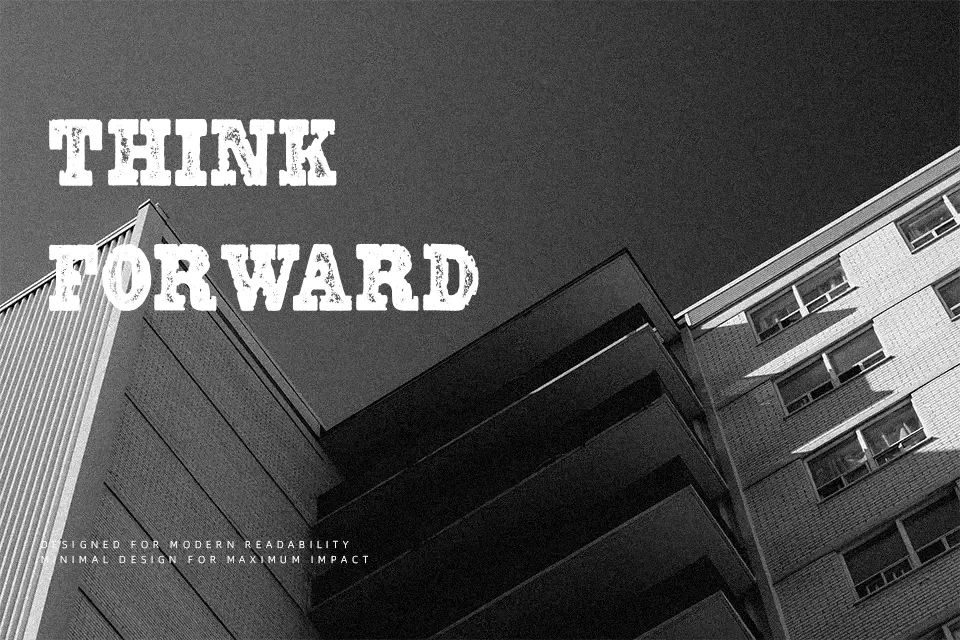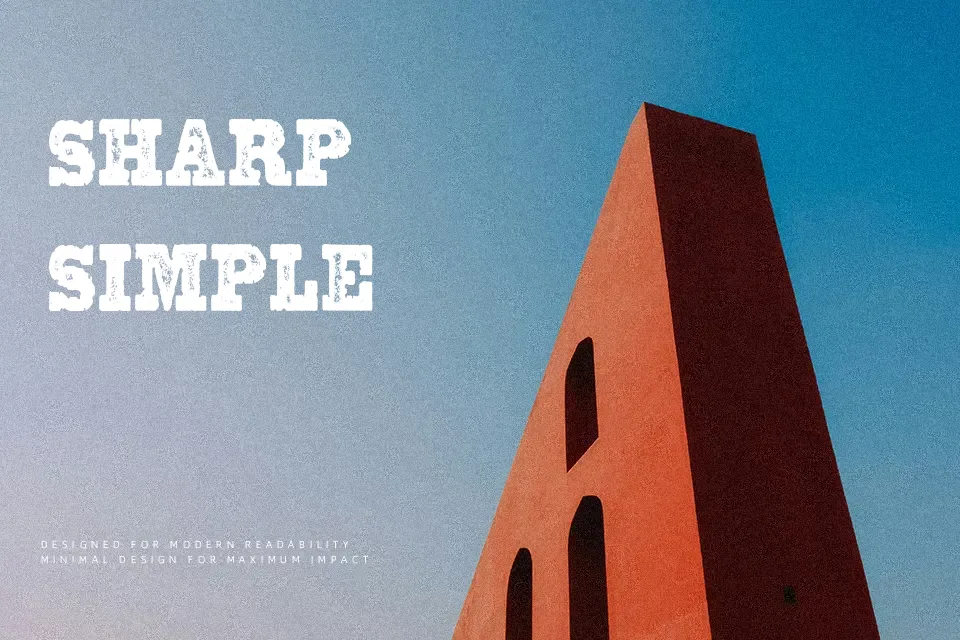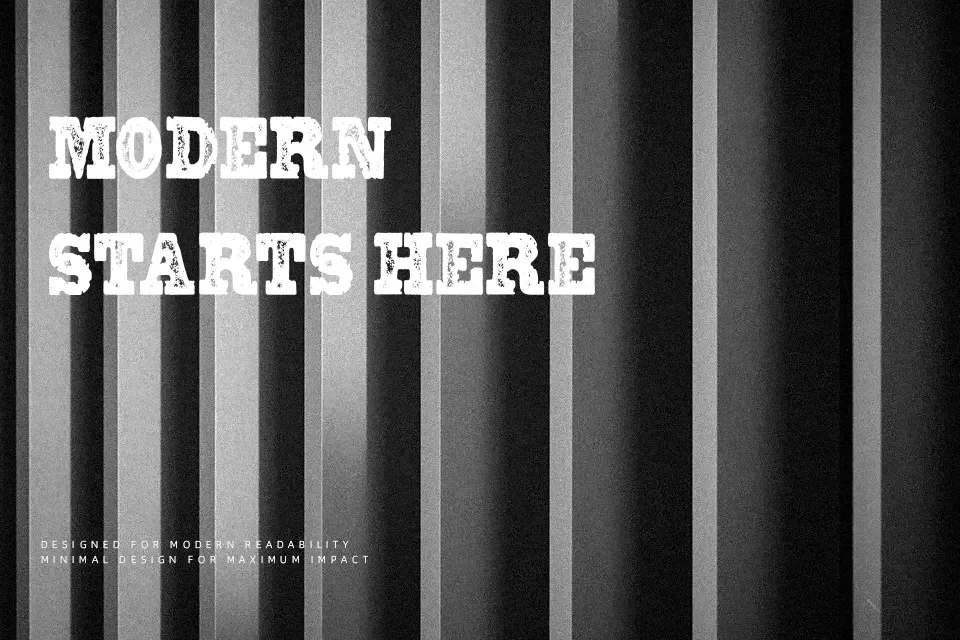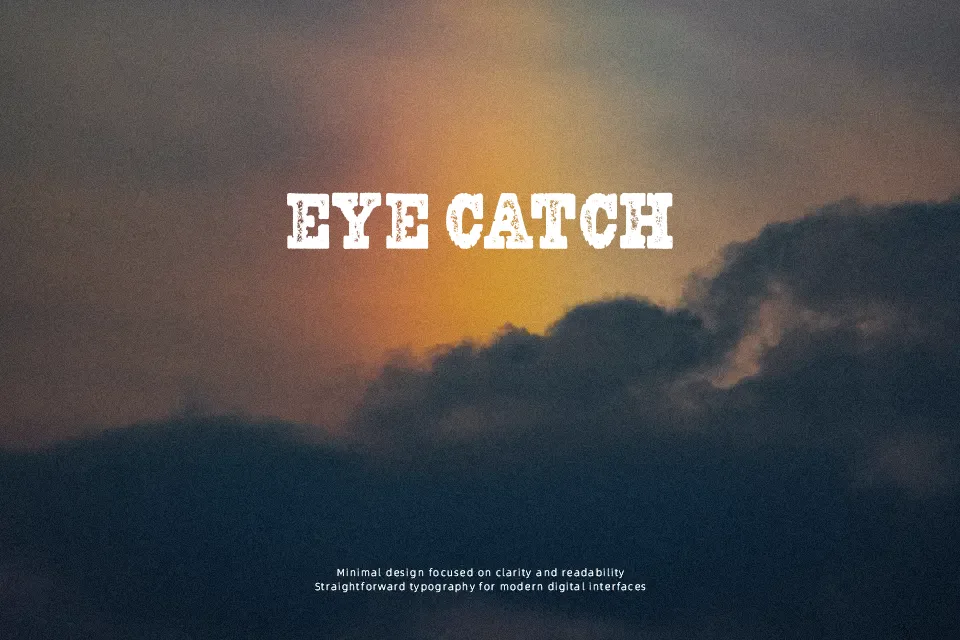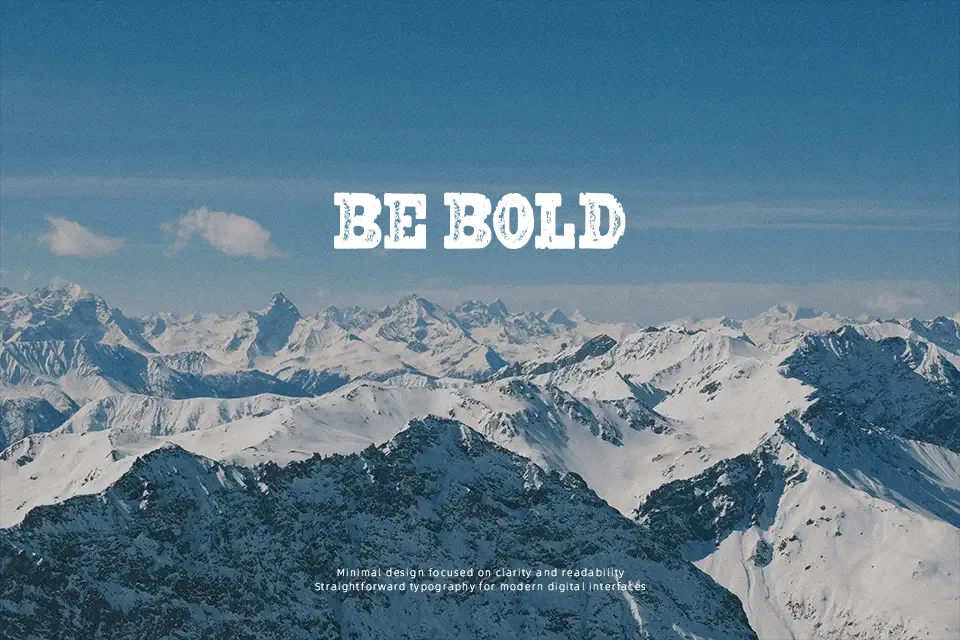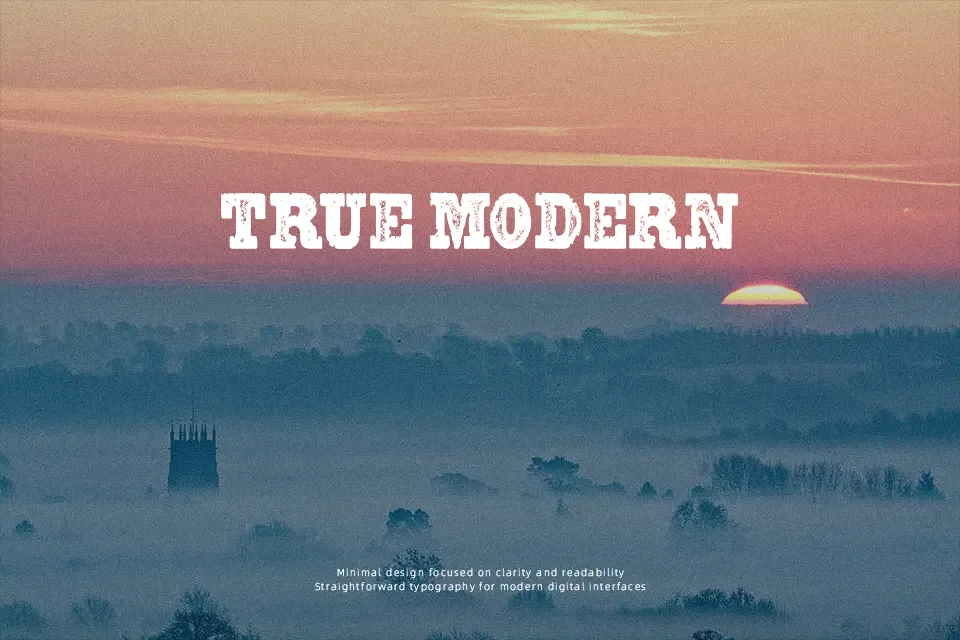
Reward Font
Reward Font immediately establishes a rugged, vintage presence through its thick, spurred letterforms and deliberately eroded textures. The heavy stroke weight and decorative spurs create a classic western slab serif structure, giving each character a distinct, weathered appearance. Proportions remain wide and imposing, while the balanced spacing helps maintain clarity despite the high level of distressed detailing. This bold structure ensures strong visibility in large display text, making the typeface highly effective for rustic apparel graphics, festival posters, and striking beverage packaging. However, the heavy textures and decorative details become less effective at smaller sizes, where the distressed forms can bleed together and reduce continuous reading comfort in dense editorial layouts.
vintage product packaging
rustic beverage branding
retro apparel graphics
spreadsheet data
Perfect for branding, fashion, and packaging, with a bold and decorative style.